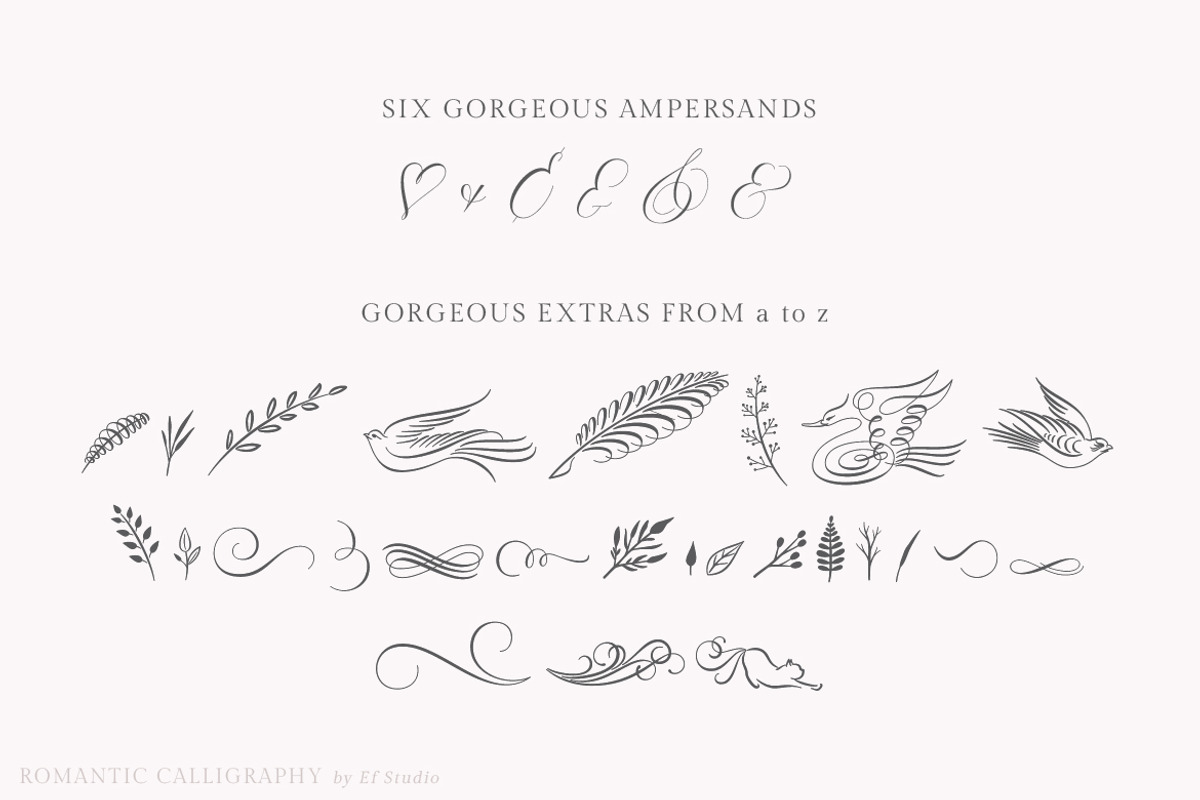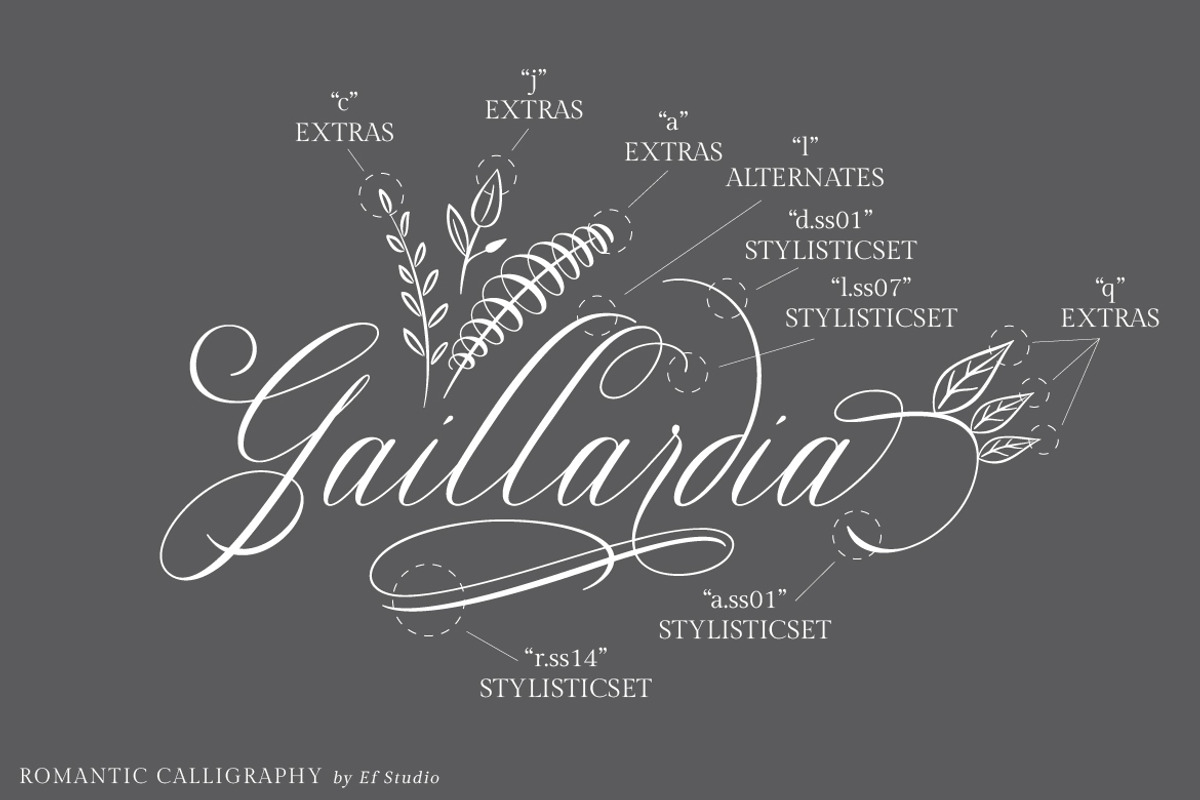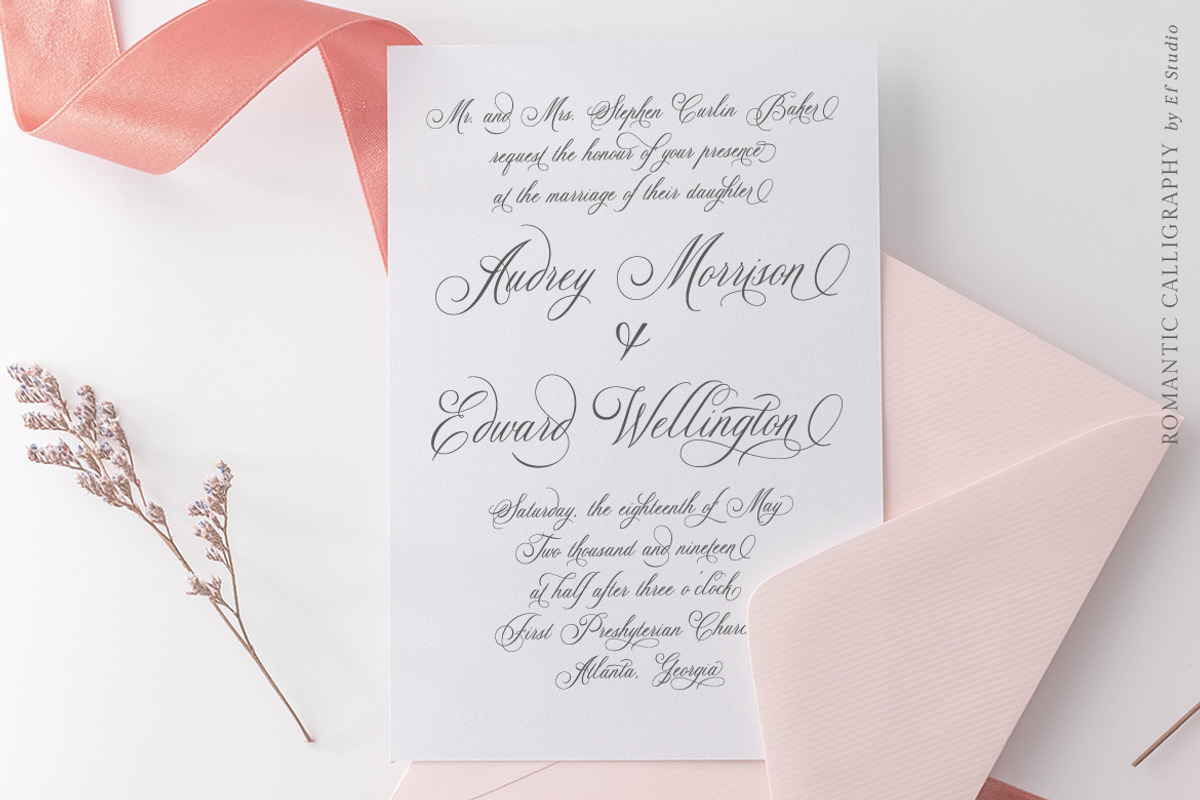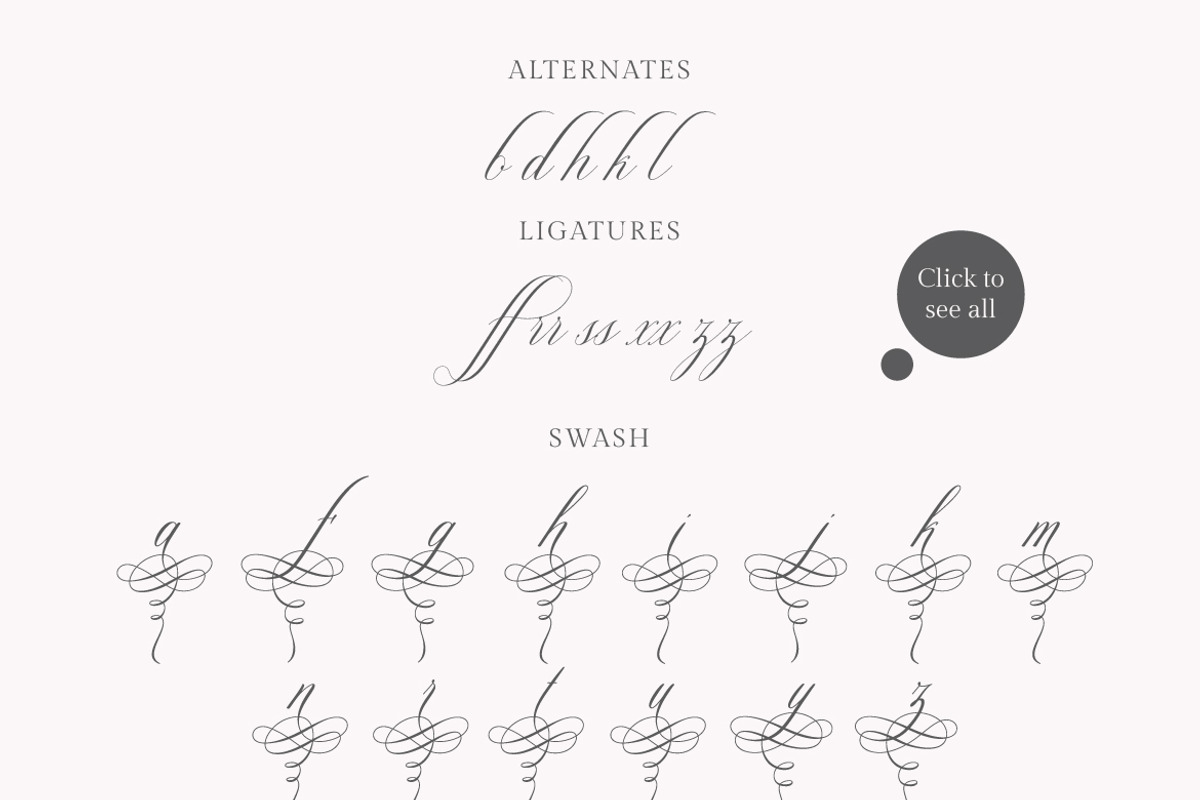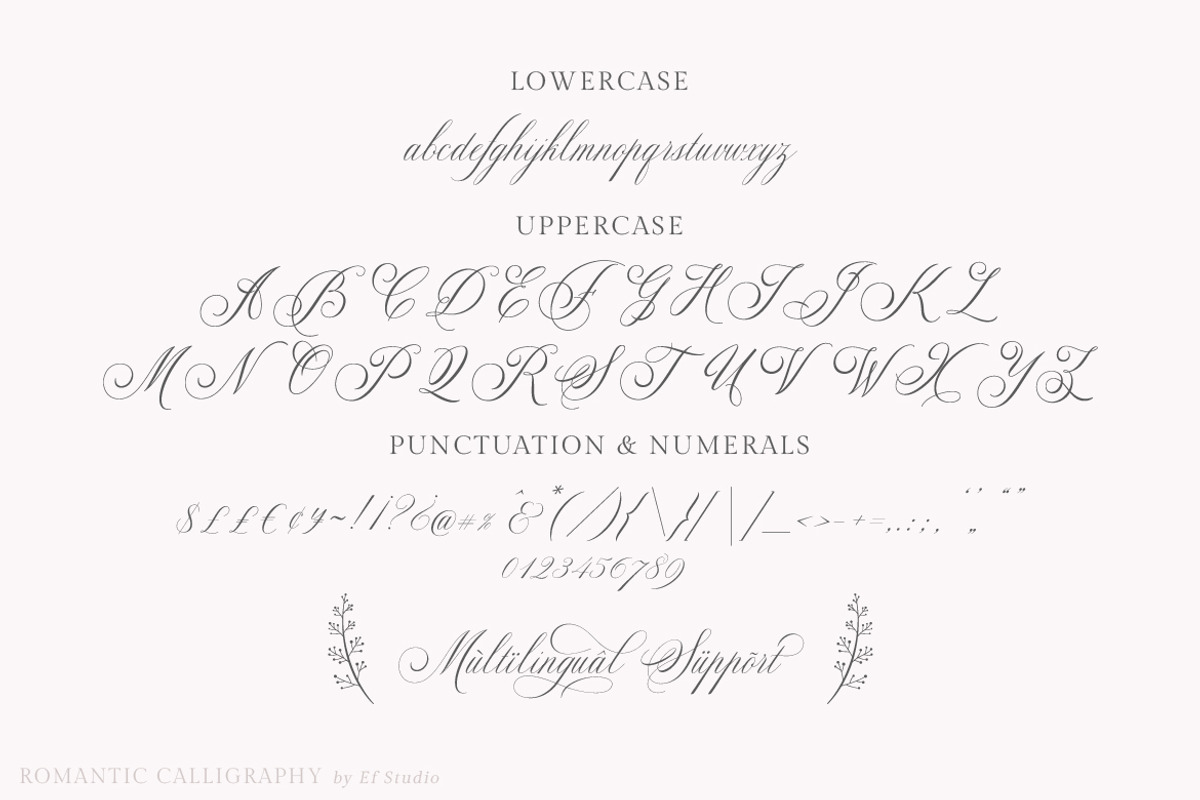
Introducing the new romantic calligraphy font, Glaston! Glaston is perfect for red wine label, vodka label, upscale packaging, wedding stationery, invitations, business cards, branding and other projects that require a touch of handwriting and luxury.
Glaston includes full set of gorgeous uppercase and lowercase letters, multilingual support, punctuation, ligatures, alternates, swash and stylisticset from ss01 to ss19. Six gorgeous ampersand, gorgeous extras from a to z and beginning and ending numerals swashes. everything can be easily accessed using software that supports OpenType. Like Adobe Indesign, Adobe Illustrator CS, Adobe Photoshop CC, and Corel Draw.